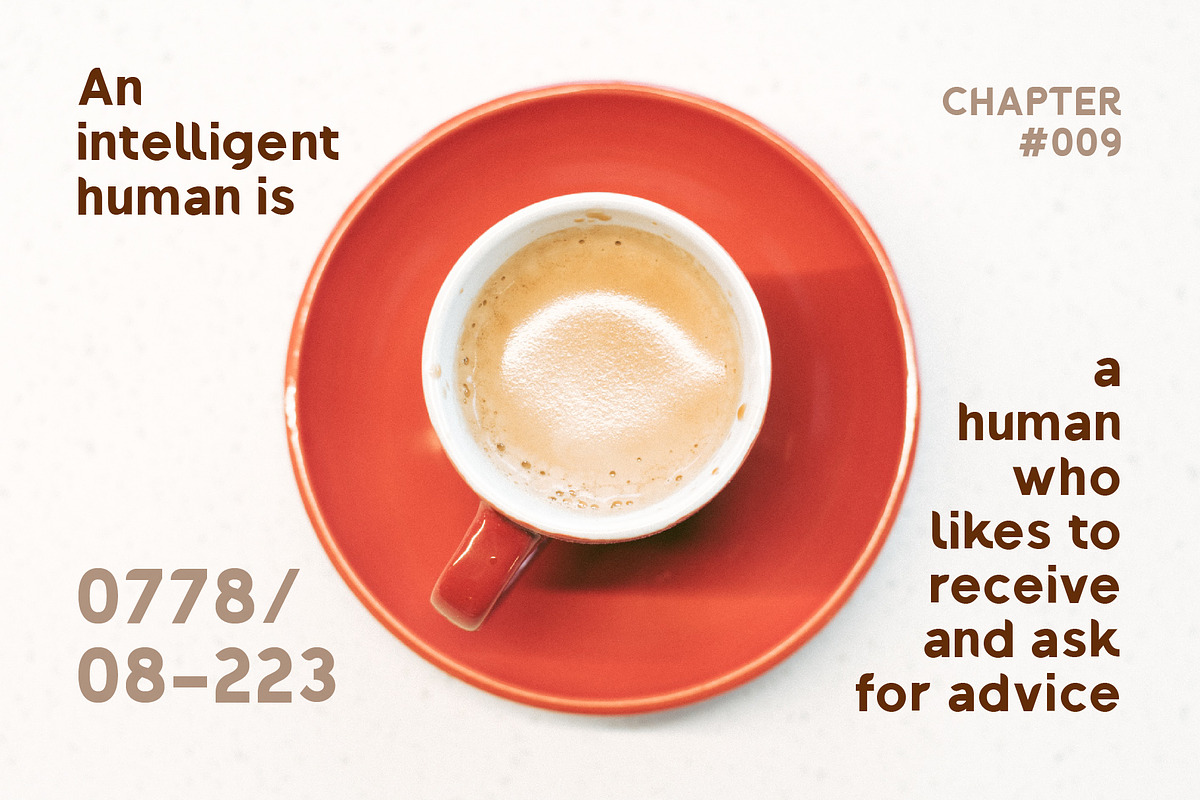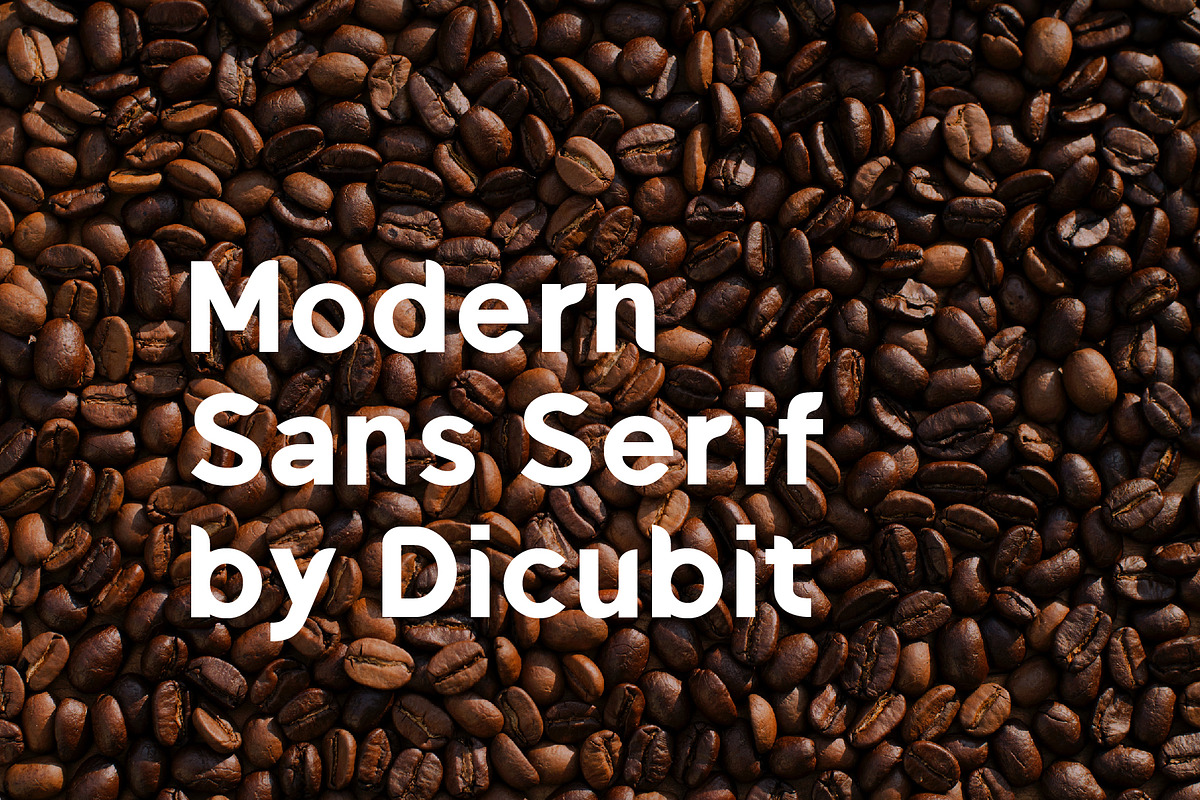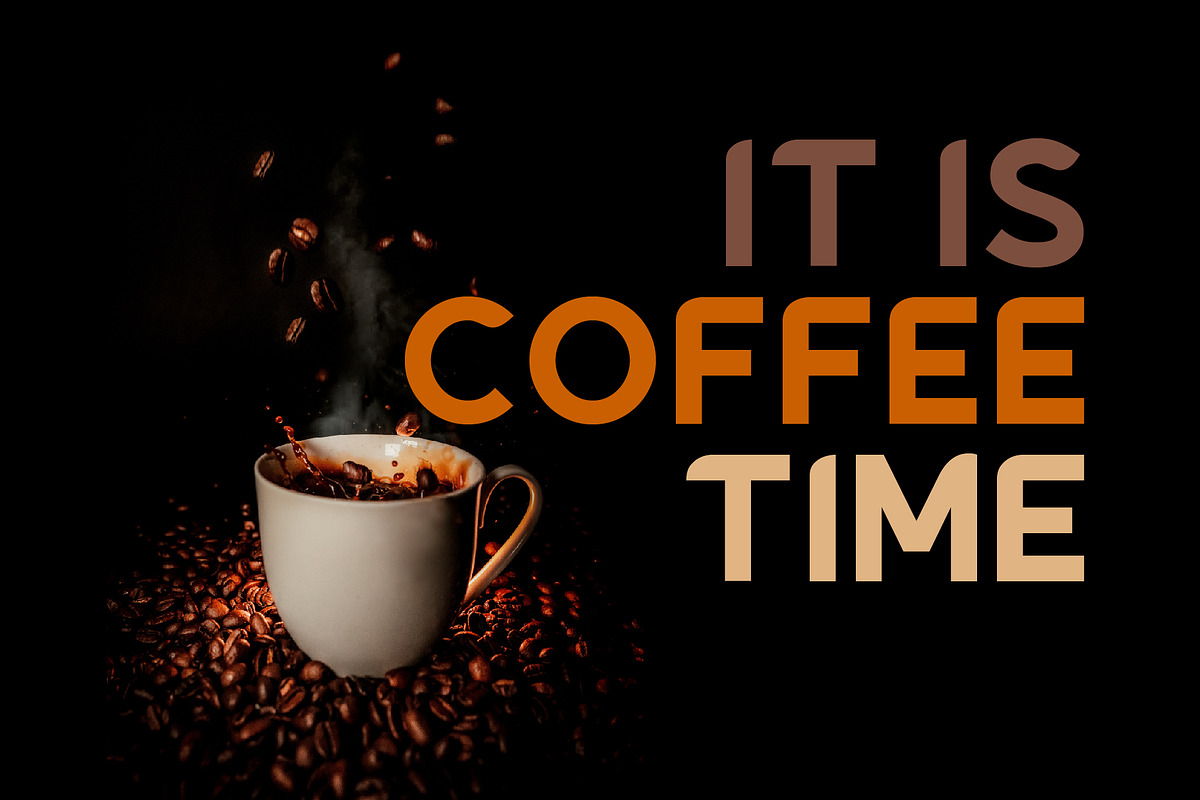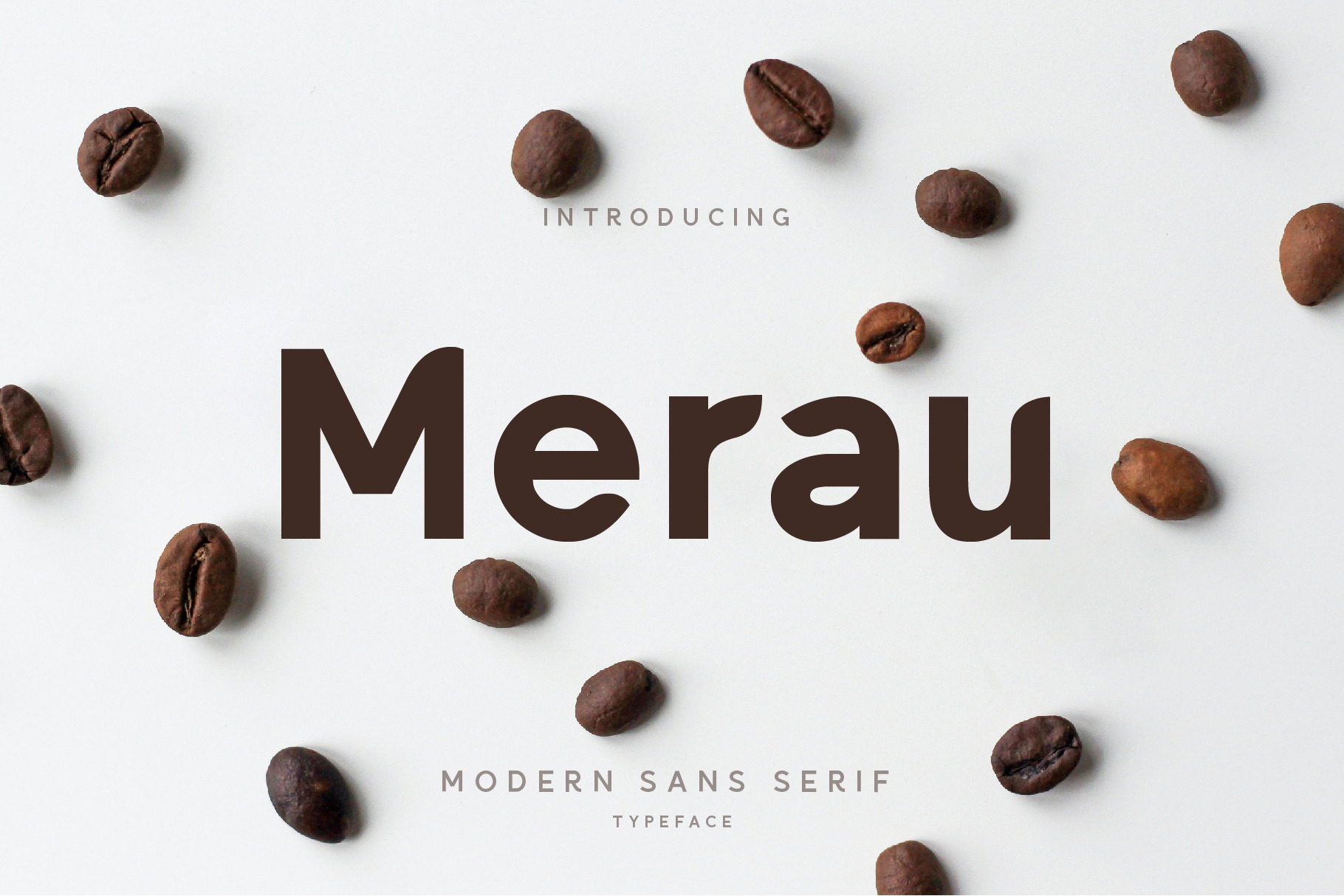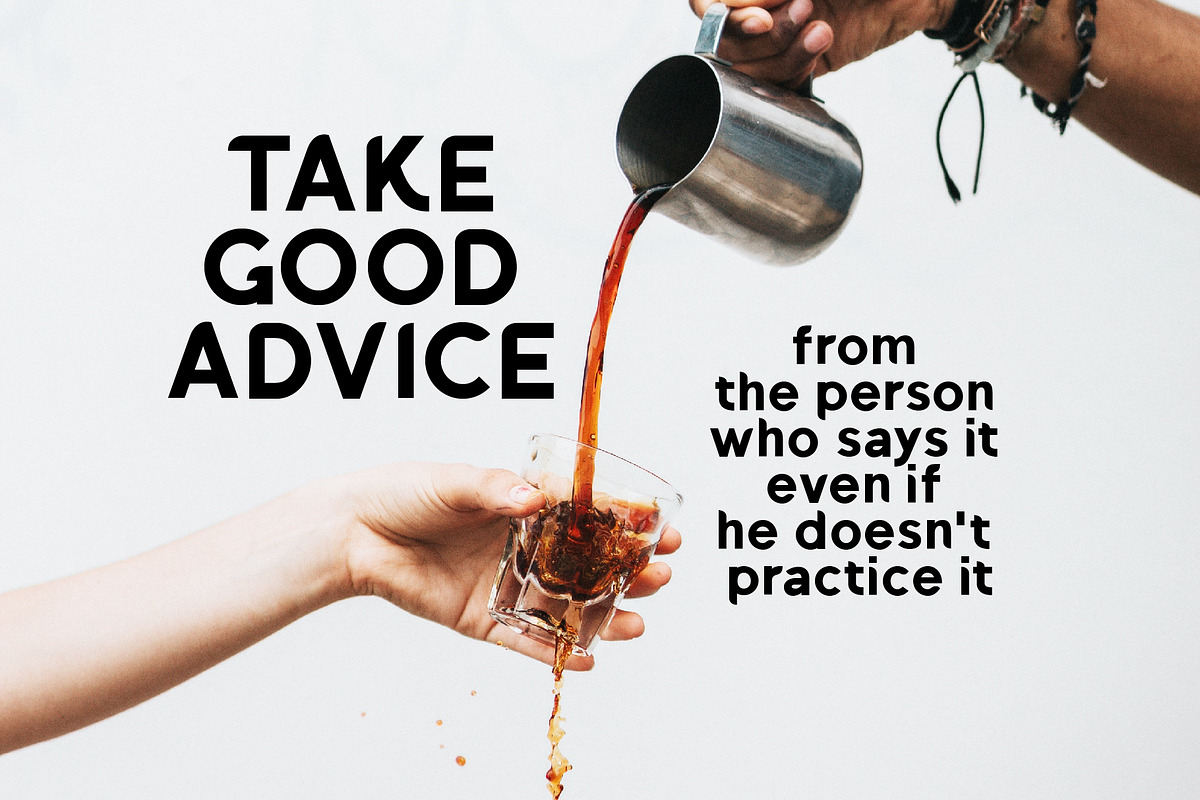
Merau Modern Sans Serif Font
Merau is a modern sans serif typeface/font designed with carefully handcrafted. This perfectly made to be applied in logo or branding, stationery, books, packaging, fashion, magazines, t-shirt, novels, labels and many advertising purposes.